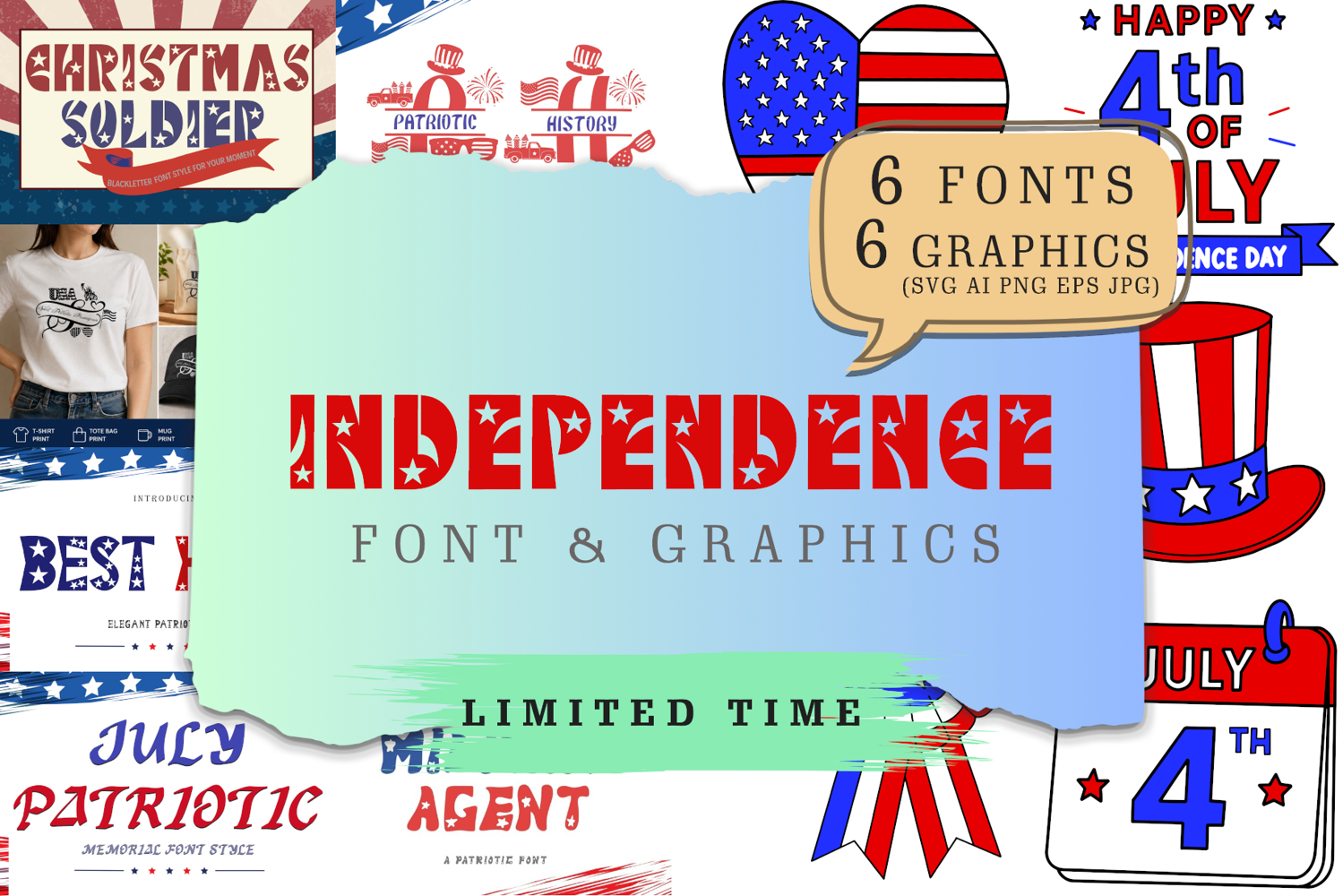
Independence Day Font & Graphics
The Independence Day Fonts & Graphics Pack is a patriotic collection featuring six unique fonts and six matching graphics, perfect for creating eye-catching designs for the 4th of July, Independence Day, Memorial Day, Veterans Day, t-shirts, invitations, posters, party decorations, and more. This versatile pack adds bold and festive American spirit to a variety of creative projects.